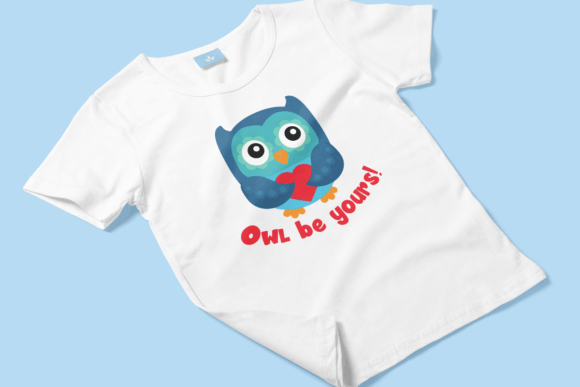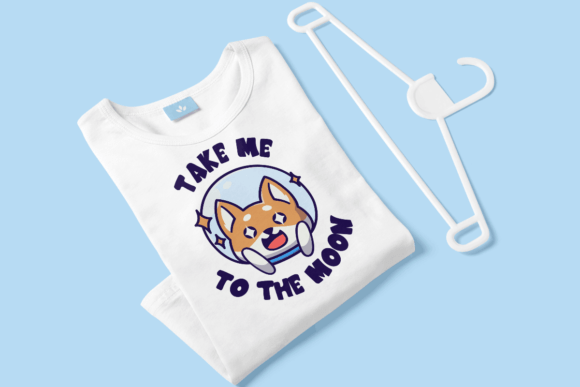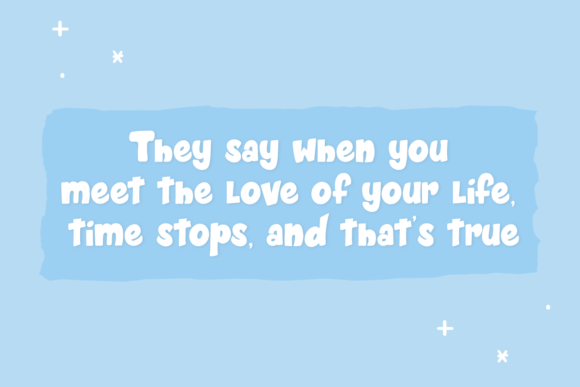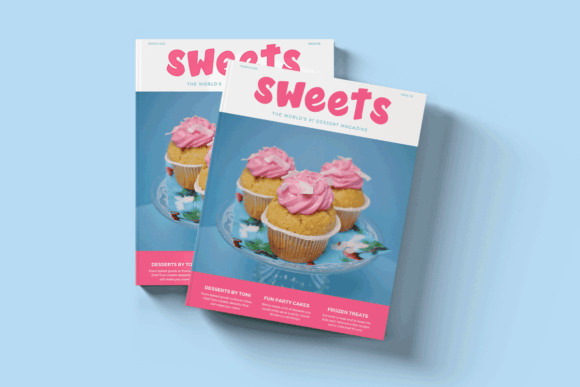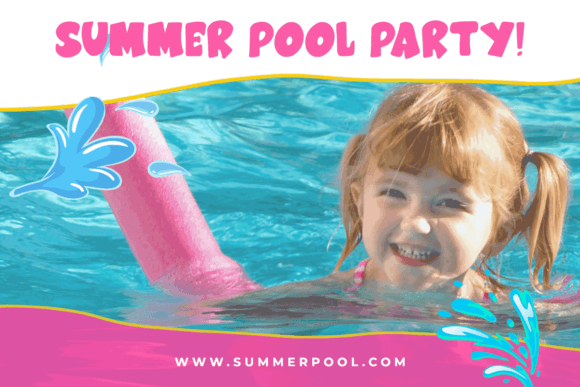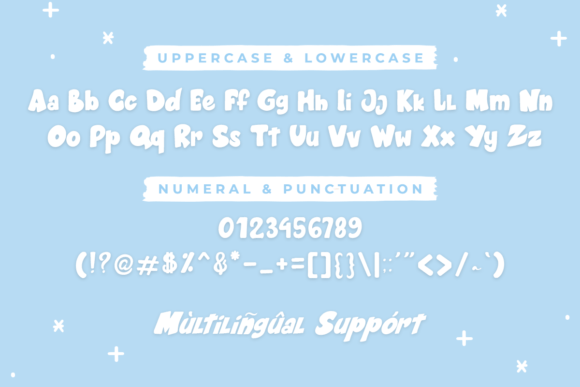
Introducing Cartoon Cookies Font: The Sweetest Addition to Your Design Collection
Are you tired of using the same old fonts in your designs? Look no further! Cartoon Cookies Font is here to add a fun and playful touch to your creations. This round and cute display font is perfect for designers and crafters who want to give their work a unique and authentic feel.
What is Cartoon Cookies Font?
Cartoon Cookies Font is a carefully crafted display font that is designed to bring a smile to your face. Its rounded edges and cute appearance make it perfect for a variety of design projects, from invitations and greeting cards to stationery art and more.
With Cartoon Cookies Font, you can add a touch of whimsy and fun to your designs. Its authentic feel is sure to capture the attention of your audience and leave a lasting impression.
Features of Cartoon Cookies Font
- Round and Cute Design: Cartoon Cookies Font features a round and cute design that is sure to delight your audience.
- Authentic Feel: The font has an authentic feel that makes it perfect for creating designs that are both fun and engaging.
- Easy to Read: The font is easy to read, making it perfect for use in a variety of design projects, from invitations to greeting cards.
- Versatile: Cartoon Cookies Font is versatile and can be used in a variety of design projects, from digital designs to print materials.
Uses of Cartoon Cookies Font
Cartoon Cookies Font is perfect for a variety of design projects, including:
- Invitations: Use Cartoon Cookies Font to create gorgeous invitations for parties, weddings, and other special events.
- Stationery Art: Add a touch of fun and whimsy to your stationery art with Cartoon Cookies Font.
- Greeting Cards: Create cute and engaging greeting cards for special occasions, such as birthdays and holidays.
- Digital Designs: Use Cartoon Cookies Font in your digital designs, such as social media graphics and blog posts.
Why Choose Cartoon Cookies Font?
There are many reasons why you should choose Cartoon Cookies Font for your design projects. Here are just a few:
- Unique and Fun: Cartoon Cookies Font is a unique and fun font that will add a touch of whimsy to your designs.
- High-Quality: Cartoon Cookies Font is a high-quality font that is designed to produce crisp and clear results.
Tips for Using Cartoon Cookies Font
Here are a few tips for using Cartoon Cookies Font in your design projects:
- Use it Sparingly: Use Cartoon Cookies Font sparingly to add a touch of fun and whimsy to your designs.
- Pair it with Other Fonts: Pair Cartoon Cookies Font with other fonts to create a unique and interesting design.
- Have Fun: Most importantly, have fun and be creative with Cartoon Cookies Font!
Cartoon Cookies Font is a fun and playful display font that is perfect for designers and crafters who want to add a touch of whimsy to their designs. With its round and cute design, authentic feel, and versatility, Cartoon Cookies Font is sure to become a favorite in your design collection.